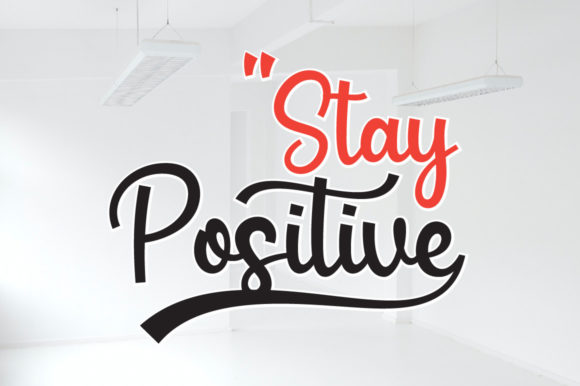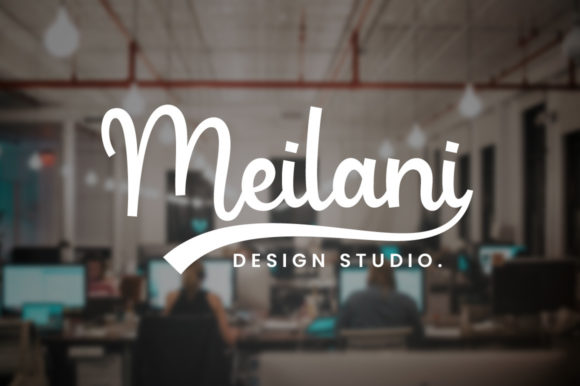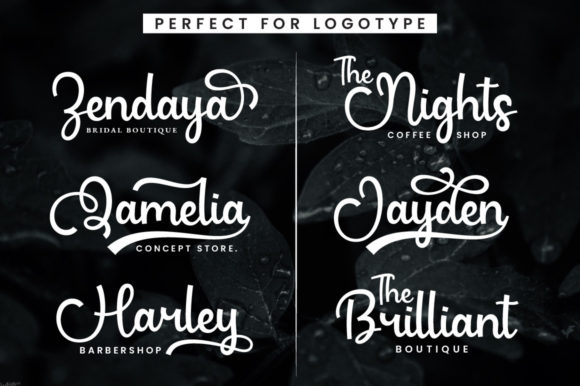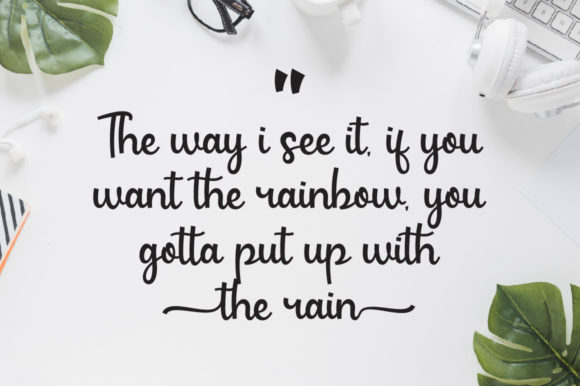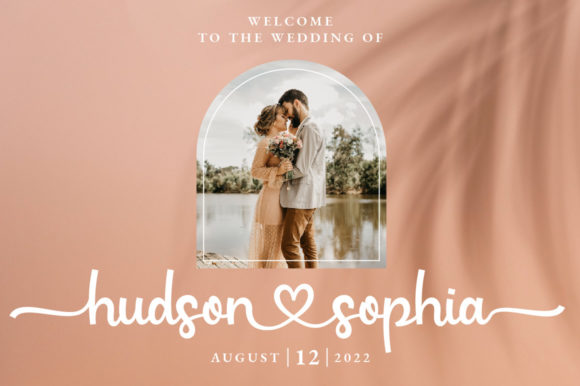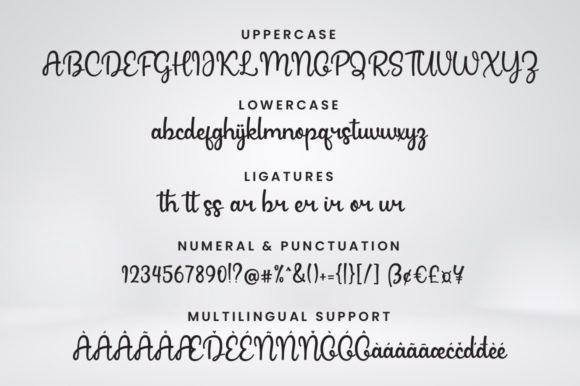
Introducing Good Friends Font: Elevate Your Designs with Modern Calligraphy
Are you a designer or crafter looking for a unique and stylish font to elevate your creative projects? Look no further than Good Friends Font, a bold modern calligraphy font that is sure to impress. With its smooth handwritten flows and versatility, this font is perfect for a wide range of applications, from logos and watermarks to wedding stationery, cards, gift designs, photography, and product packaging.
What Makes Good Friends Font Special?
Good Friends Font is a standout in the world of typography, boasting a bold and modern calligraphy style that is both elegant and sophisticated. Its smooth handwritten flows give it a personal touch, making it perfect for designs that require a human feel. Whether you’re creating a logo, wedding invitation, or product packaging, this font is sure to add a touch of class and sophistication.
One of the best things about Good Friends Font is its versatility. It’s perfect for a wide range of applications, including:
- Logos: Create a bold and memorable logo that stands out from the crowd with Good Friends Font.
- Wedding Stationery: Add a touch of elegance and sophistication to your wedding invitations, save-the-dates, and other stationery with this beautiful font.
- Cards: Create stunning greeting cards, birthday cards, and other special occasion cards with Good Friends Font.
- Gift Designs: Add a personal touch to your gift designs, such as gift tags, gift boxes, and more.
- Photography: Use Good Friends Font to add a touch of elegance to your photography, including photo captions, titles, and more.
- Product Packaging: Elevate your product packaging with Good Friends Font, making it stand out on store shelves.
- Access a wide range of glyphs: Good Friends Font includes a wide range of glyphs, including letters, numbers, and symbols.
- Use ligatures with ease: The font includes ligatures, which allow you to create beautiful connections between letters.
Why Choose Good Friends Font?
With so many fonts available, why choose Good Friends Font? Here are just a few reasons:
- Unique and stylish: Good Friends Font is a one-of-a-kind font that will add a touch of elegance and sophistication to your designs.
- Versatile: The font is perfect for a wide range of applications, from logos to product packaging.
If you’re looking for a bold modern calligraphy font that is perfect for a wide range of applications, look no further than Good Friends Font. With its smooth handwritten flows, versatility, and PUA encoding, this font is sure to elevate your designs and take them to the next level. Whether you’re a designer or crafter, Good Friends Font is a must-have in your font collection.